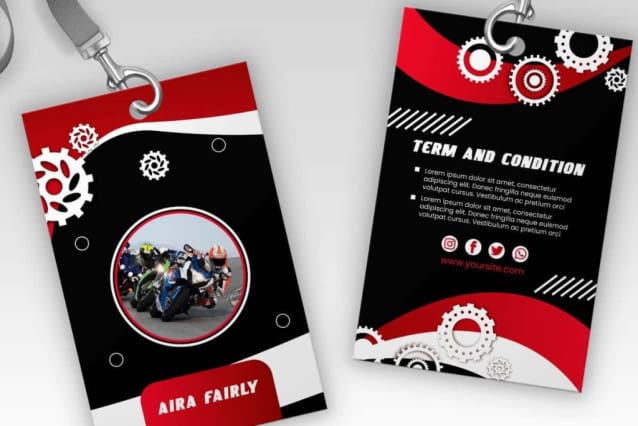
Zero Race Font
Zero Race Font is a powerful display font with a bold block typeface and a racing effect that makes each character come alive, created by VinType Studio. It will be great for branding, brochure, cards, headers, labels, letters, logos, name tag lanyard design, pamphlet, poster design, stationery, stickers, t-shirt design, websites and many more.
Zero Race Font includes full set of ALL CAPS for Uppercase and Lowercase Basic Characters, Numbers, Punctuation and Symbols. This font will attract you easily because it offers a perfect font appearance. Its slanted letters with sharp lines or angles convey a bold and agile impression. This typeface is specifically designed for racing themes with a classic style, making it a versatile choice for automotive, biker club, graphic design, menswear, sports, and more.